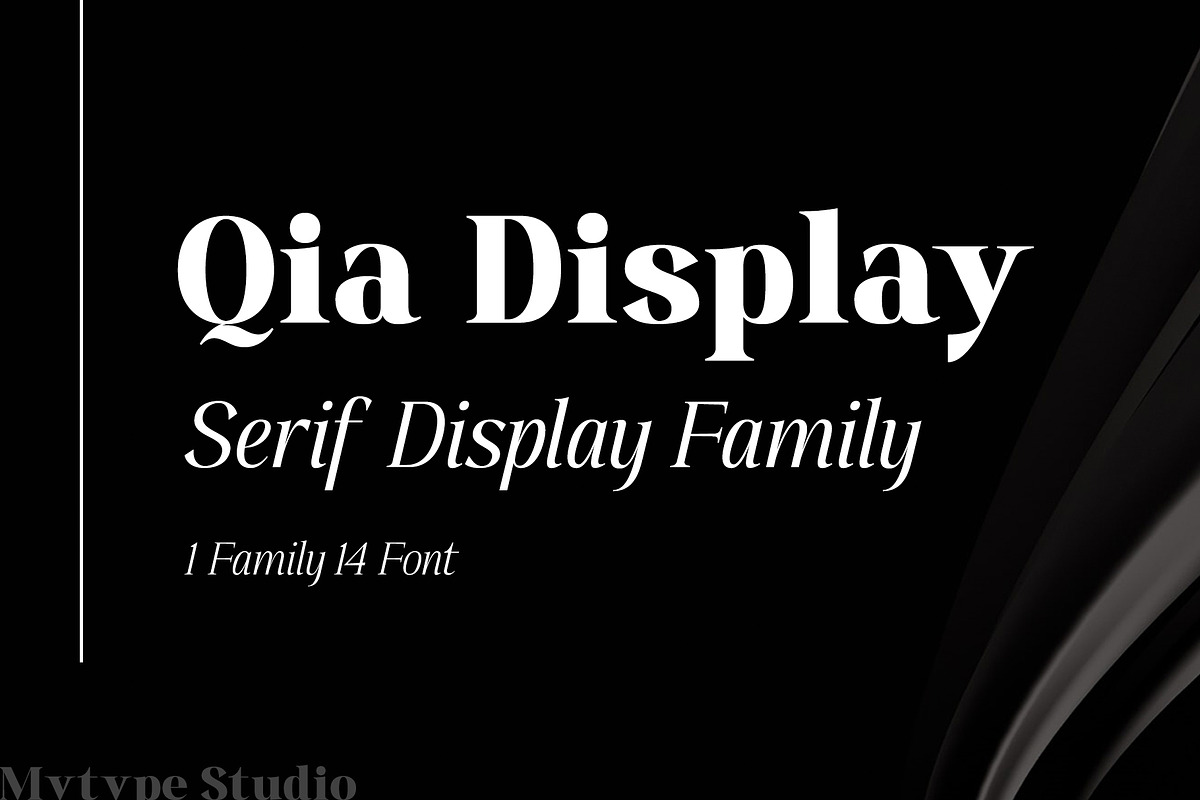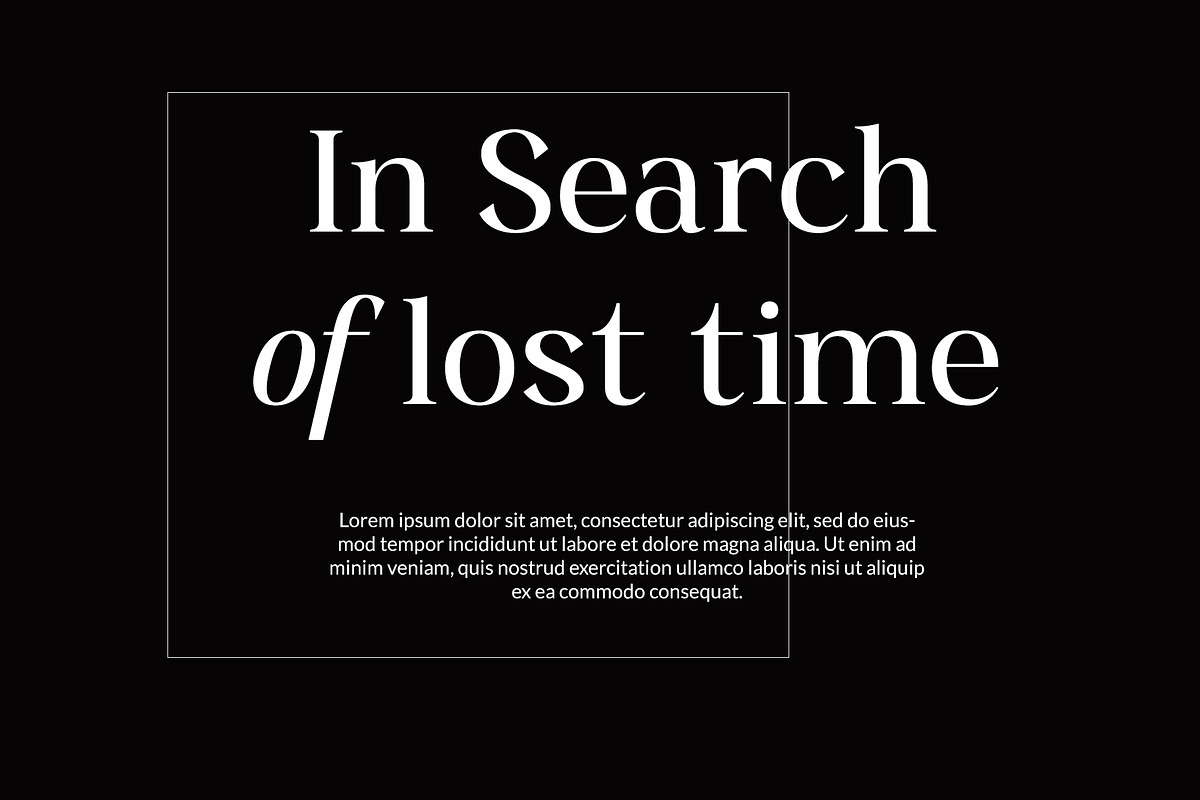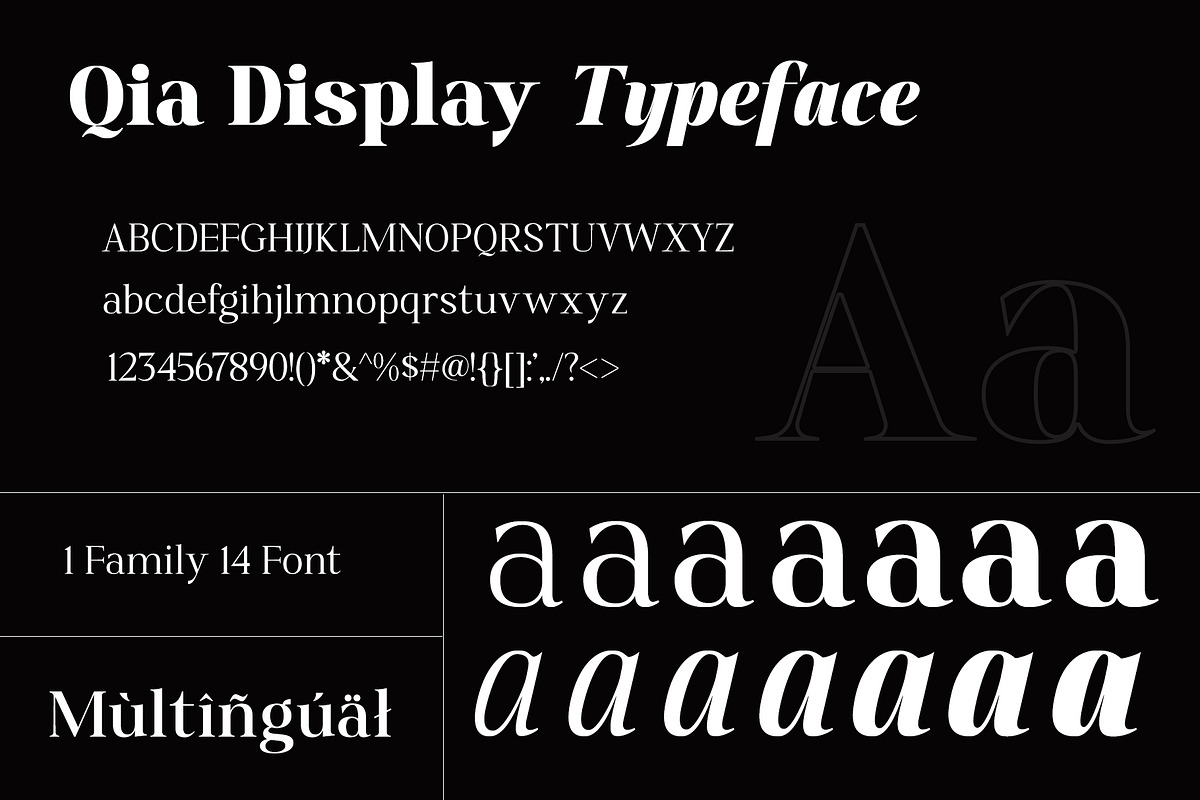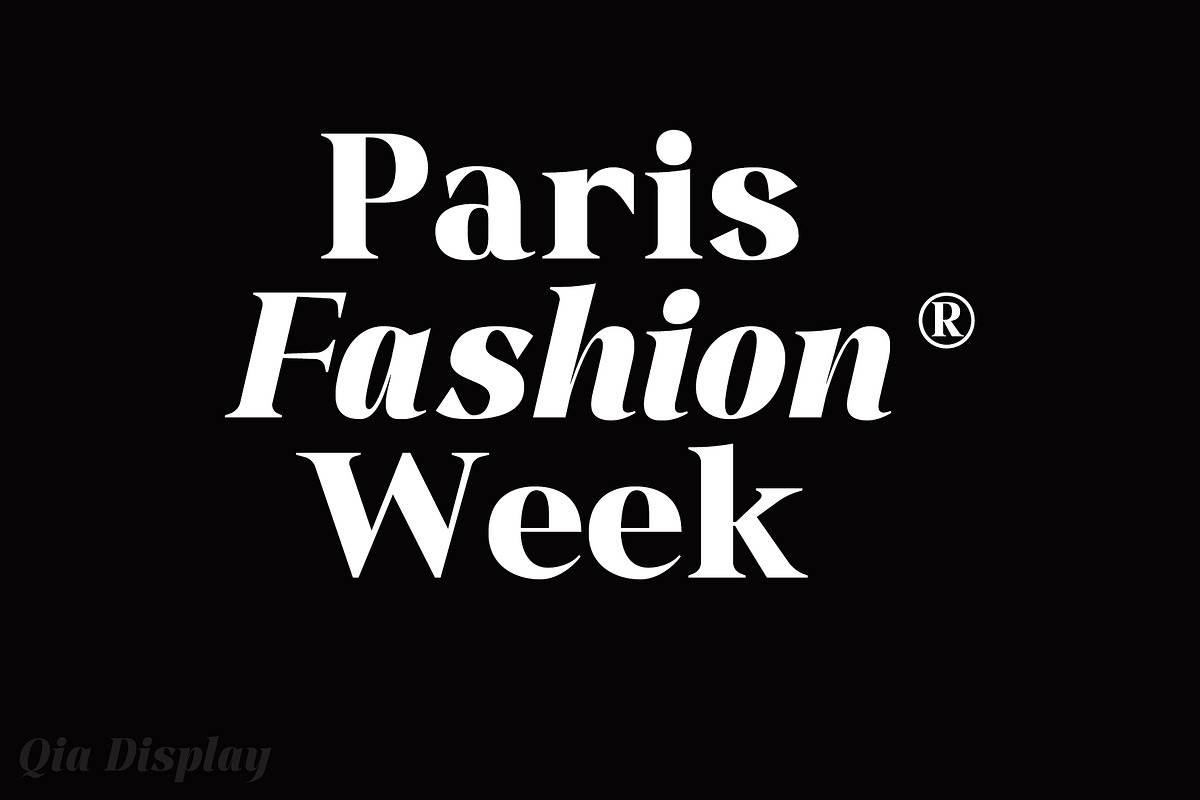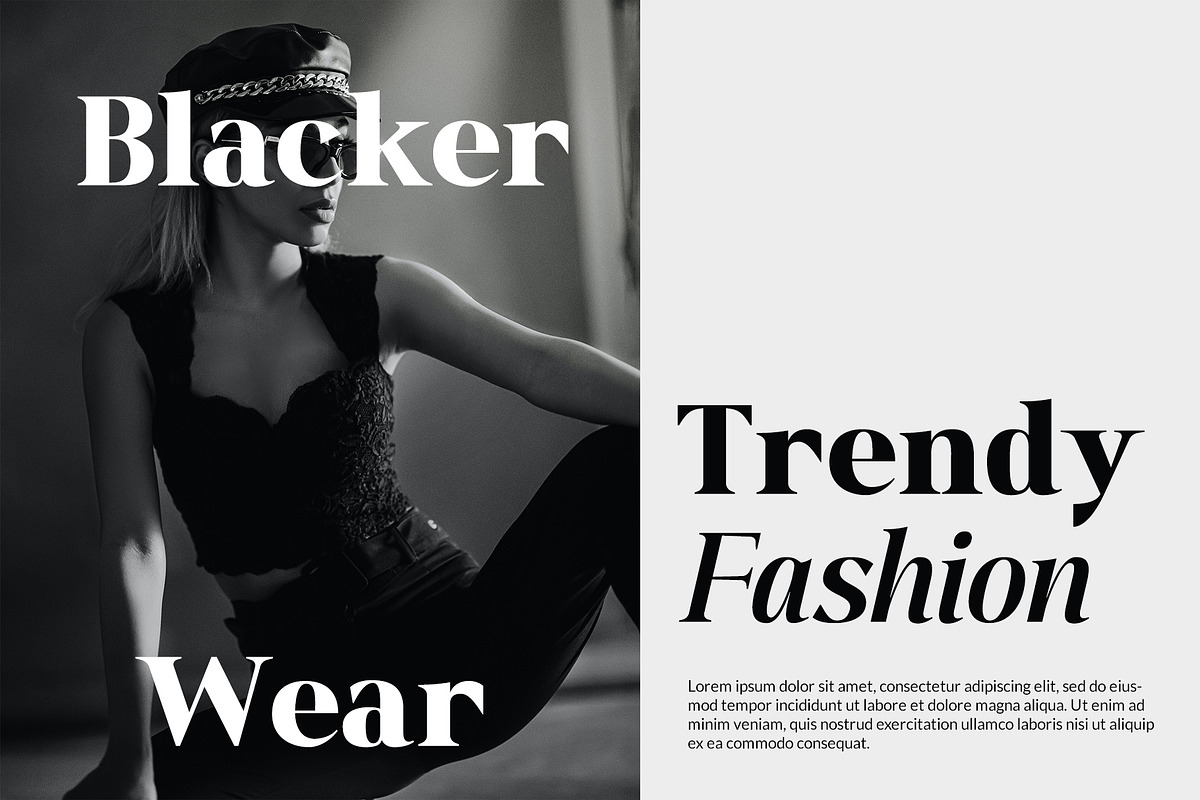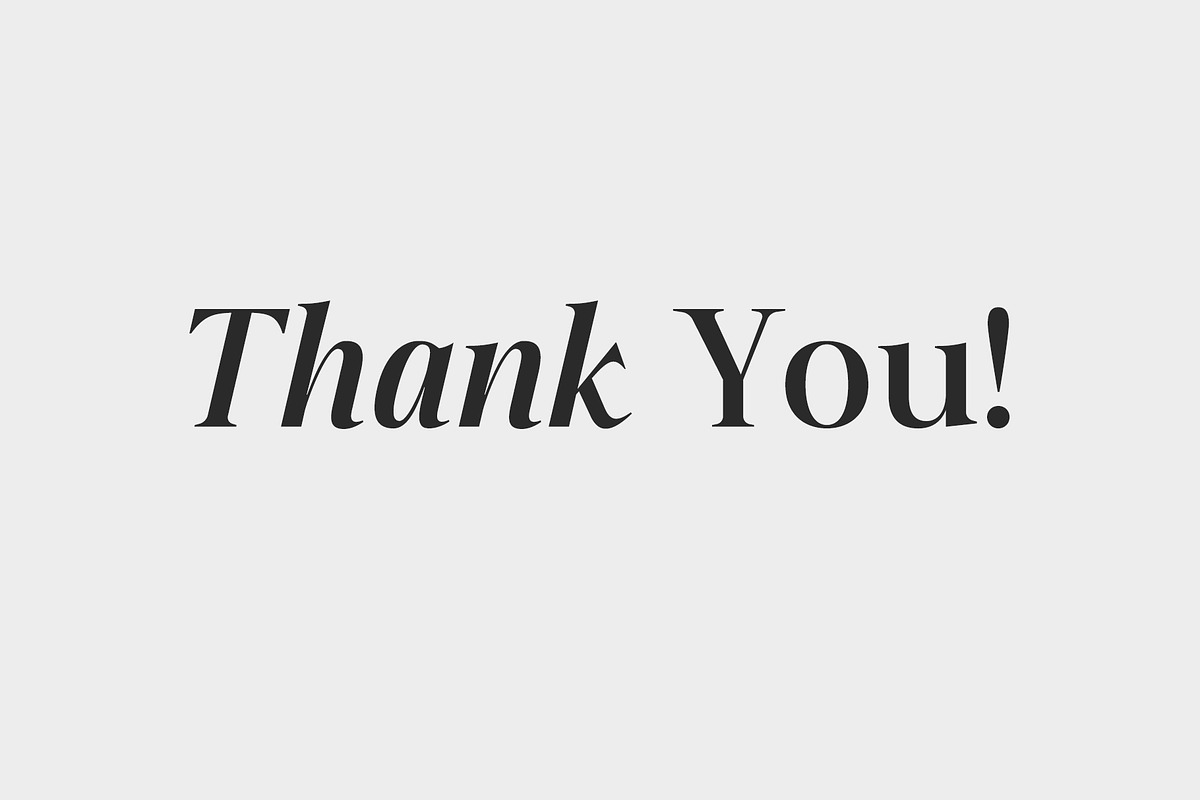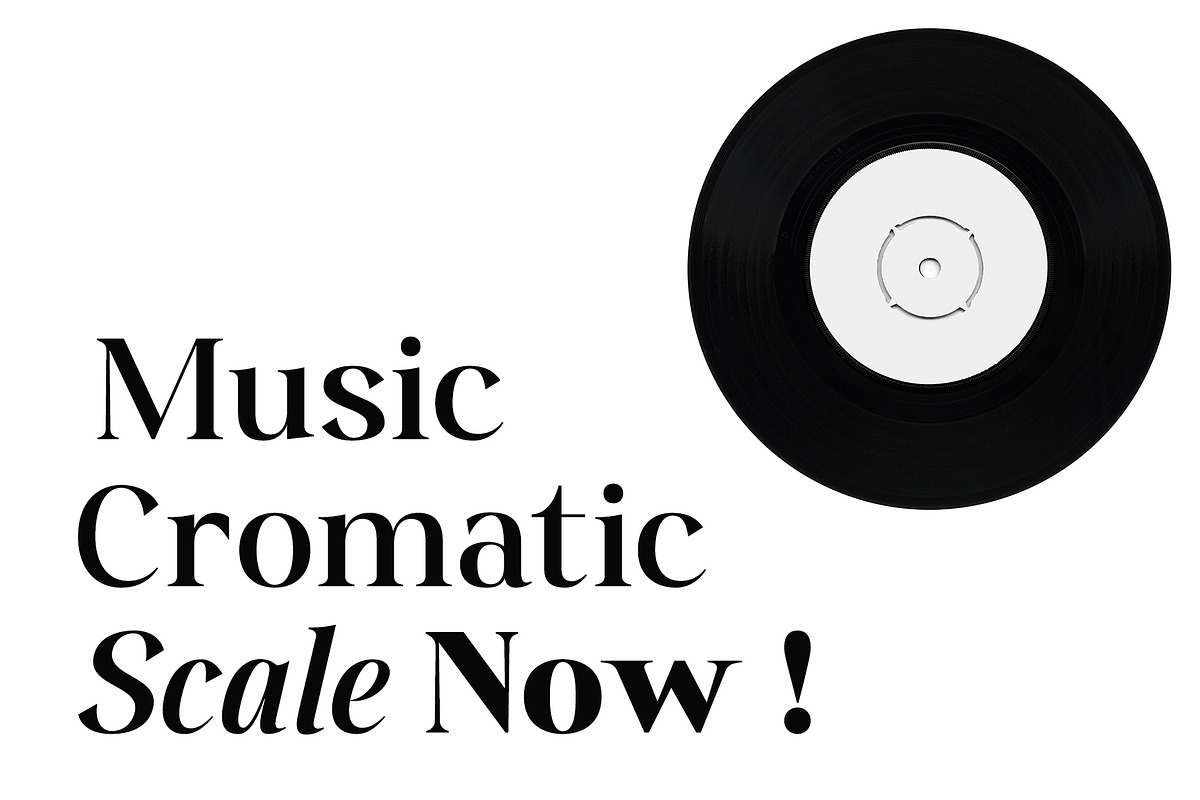
Qia Display - Serif Typeface
Qia Display is a modern serif font that embodies elegance and charm in every character. It is perfect for luxury logos, branding, classy editorial designs, women’s magazines, cosmetic brand, promotional designs, the fashion industry, and more.
This gorgeous font includes all lowercase and uppercase characters, numbers, punctuation, an array of standard ligatures and a selection of international characters as well.